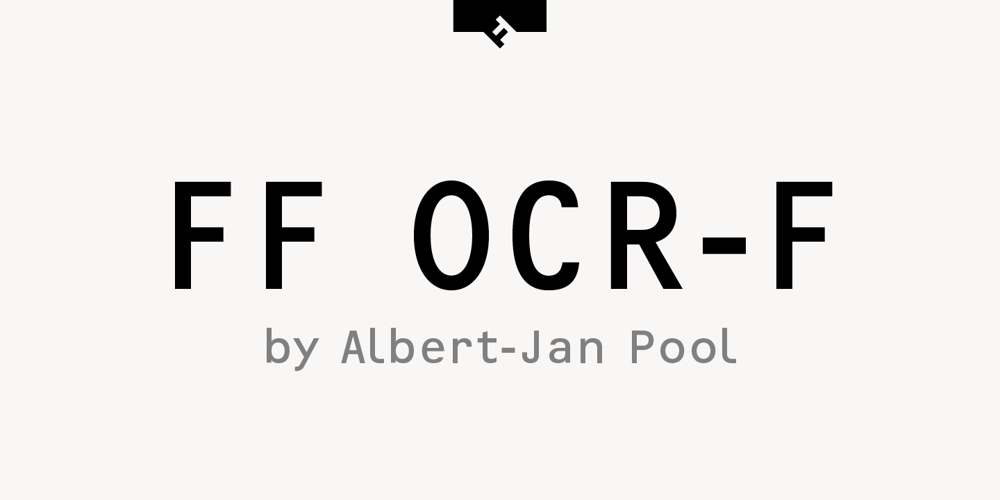
FF OCR-F Font Family was designed by Albert-Jan Pool and published by FontFont. FF OCR-F contains 3 styles and family package options. German type designer Albert-Jan Pool created this sans FontFont in 1995. The family contains 3 weights: Light, Regular, and Bold and is ideally suited for film and tv, small text as well as software and gaming. FF OCR-F provides advanced typographical support with features such as ligatures, alternate characters, case-sensitive forms, fractions, super- and subscript characters, and stylistic alternates. It comes with a complete range of figure set options – oldstyle and lining figures, each in tabular and proportional widths. As well as Latin-based languages, the typeface family also supports the Cyrillic writing system.